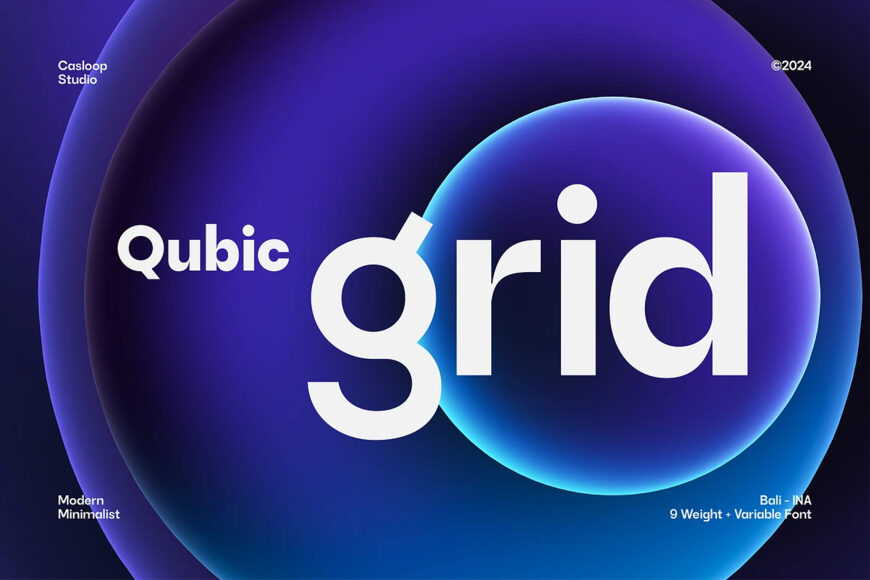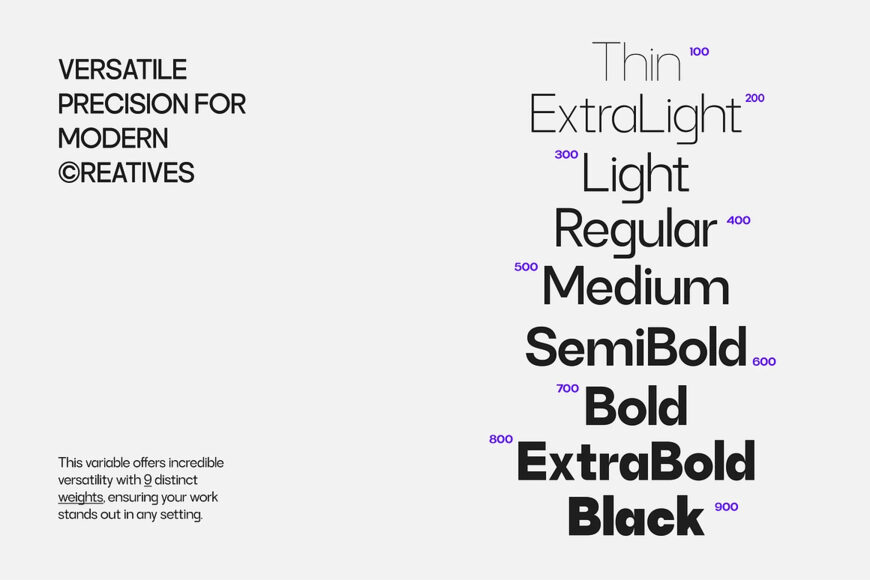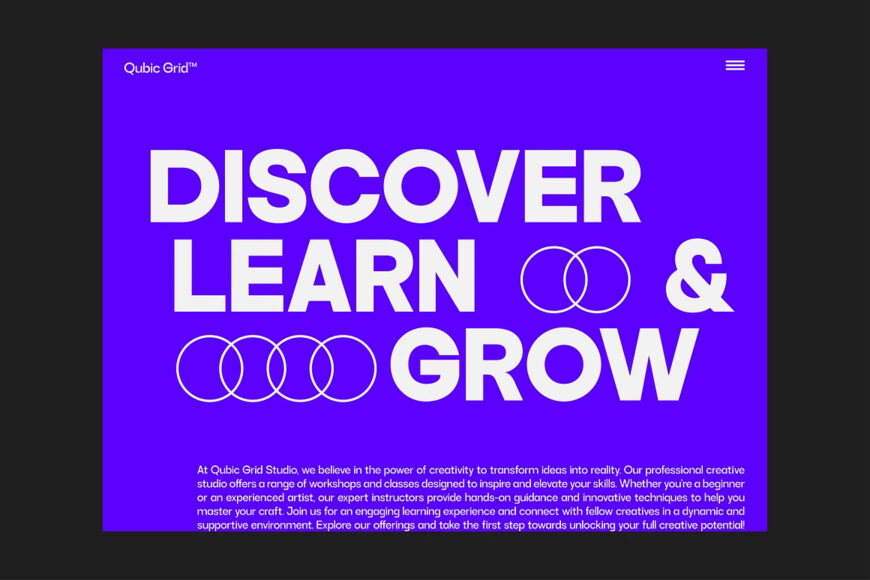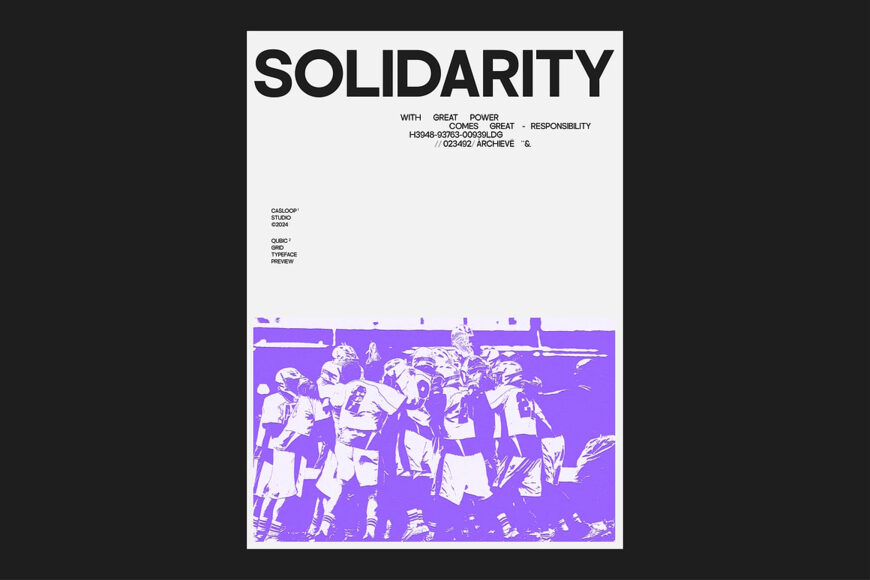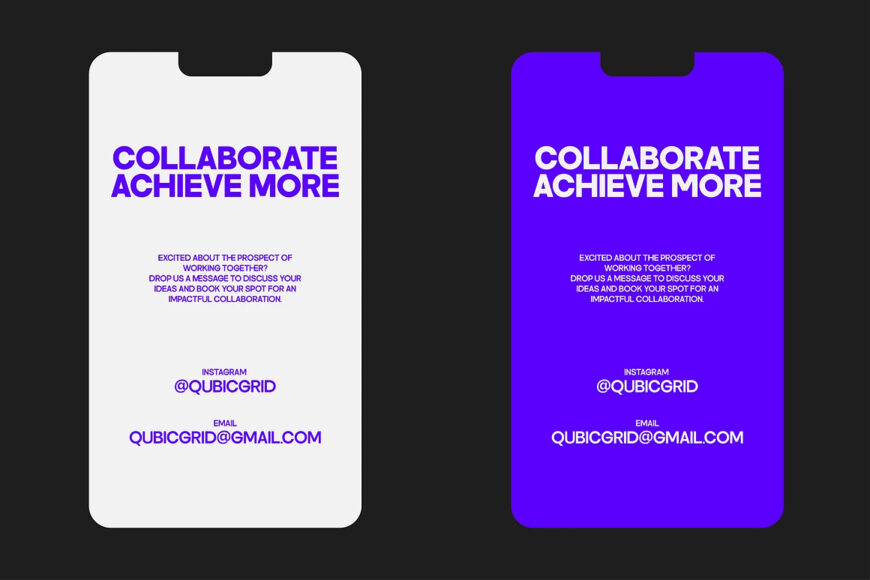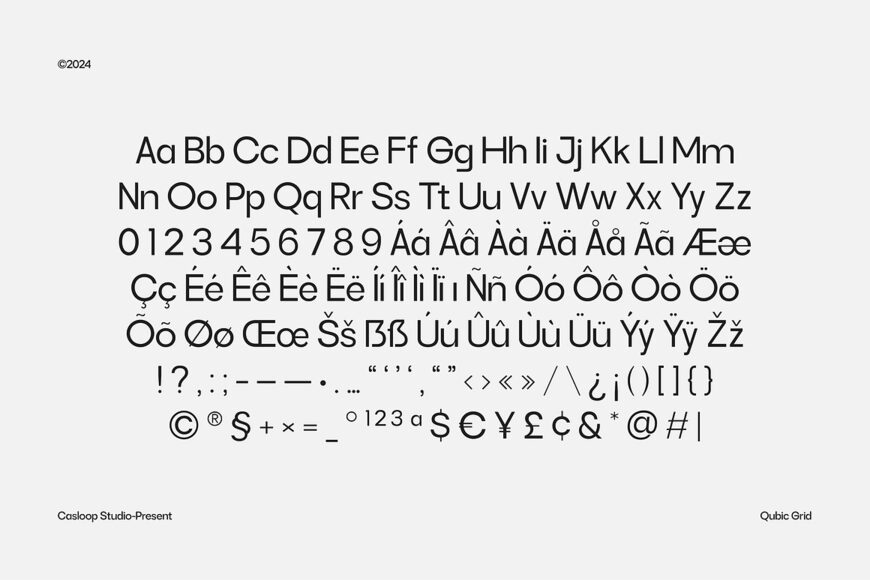
Elevate your branding with Qubic Grid, the quintessential geometric sans-serif typeface designed for today’s digital and print needs. Qubic Grid blends modernity with professionalism, offering a clean, minimalist aesthetic that effortlessly complements UI/UX design, website interfaces, and dynamic digital media visuals.
Qubic Grid stands out with its distinctive uppercase characters and Grotesque style, showcasing a sleek, contemporary design that is both impactful and legible. Quirky elements make it not only readable but also uniquely expressive. This typeface excels in conveying a sense of trustworthiness and sophistication, making it perfect for business and corporate branding.